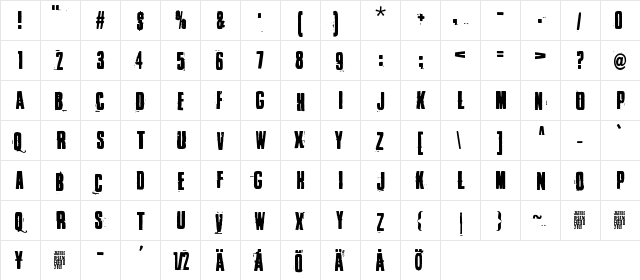
Blacklist Regular
Design Context for Blacklist Typeface
Blacklist is a composed and adaptable typeface that performs quietly and consistently across a wide range of design contexts.